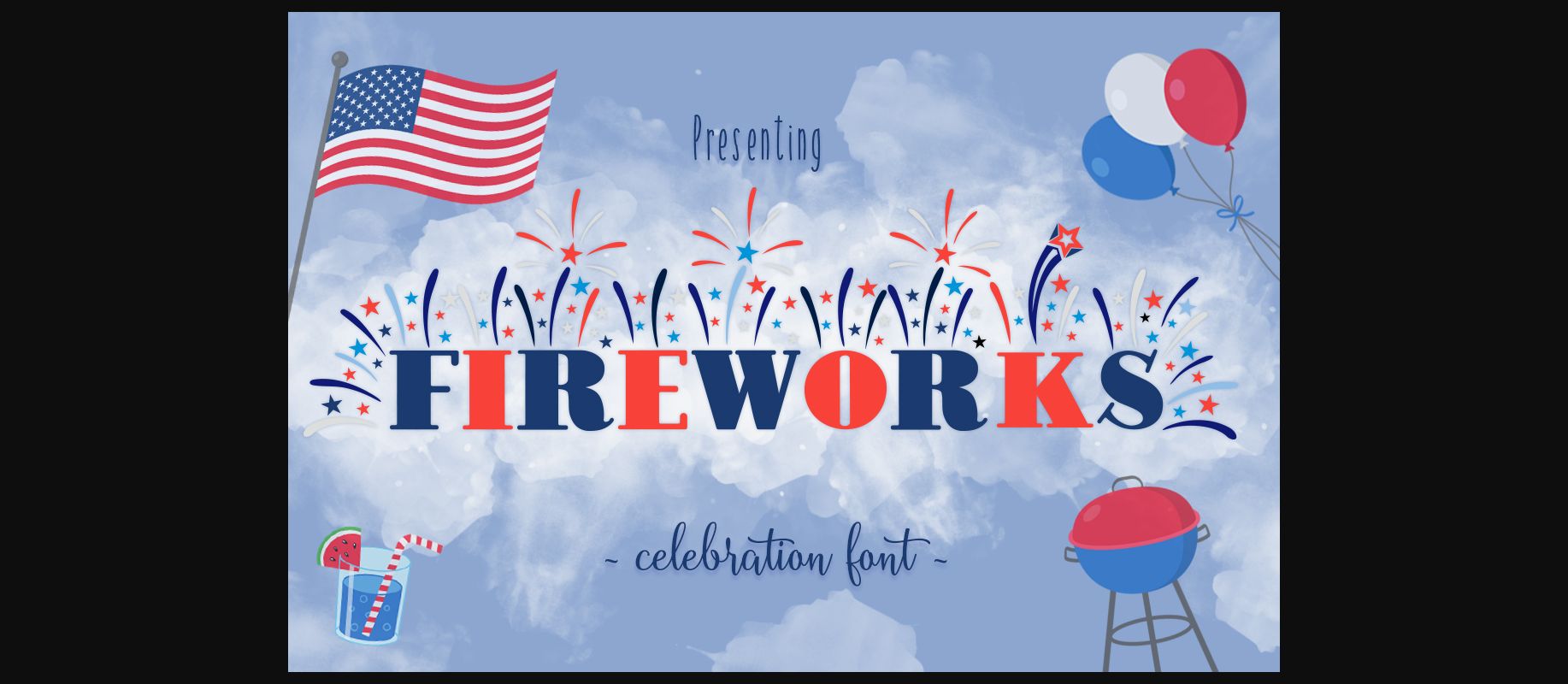
Fireworks Font
About Fireworks Font
The 4th of July is almost here, and that means fireworks! Fireworks is a fun, celebratory ornamental font that looks great for thematic craft projects. This font comes with different varieties of fireworks per character, and looks great in a wide range of products.